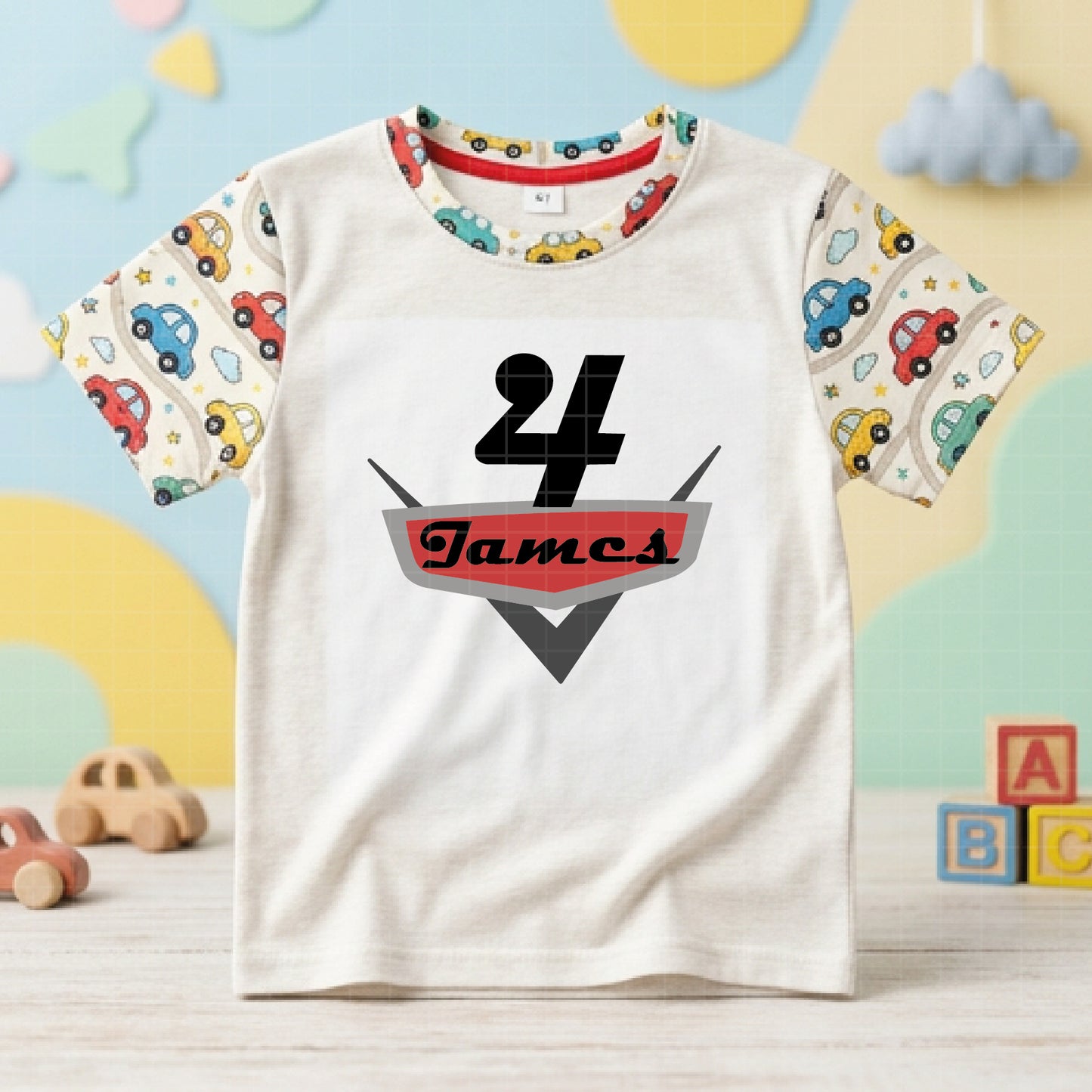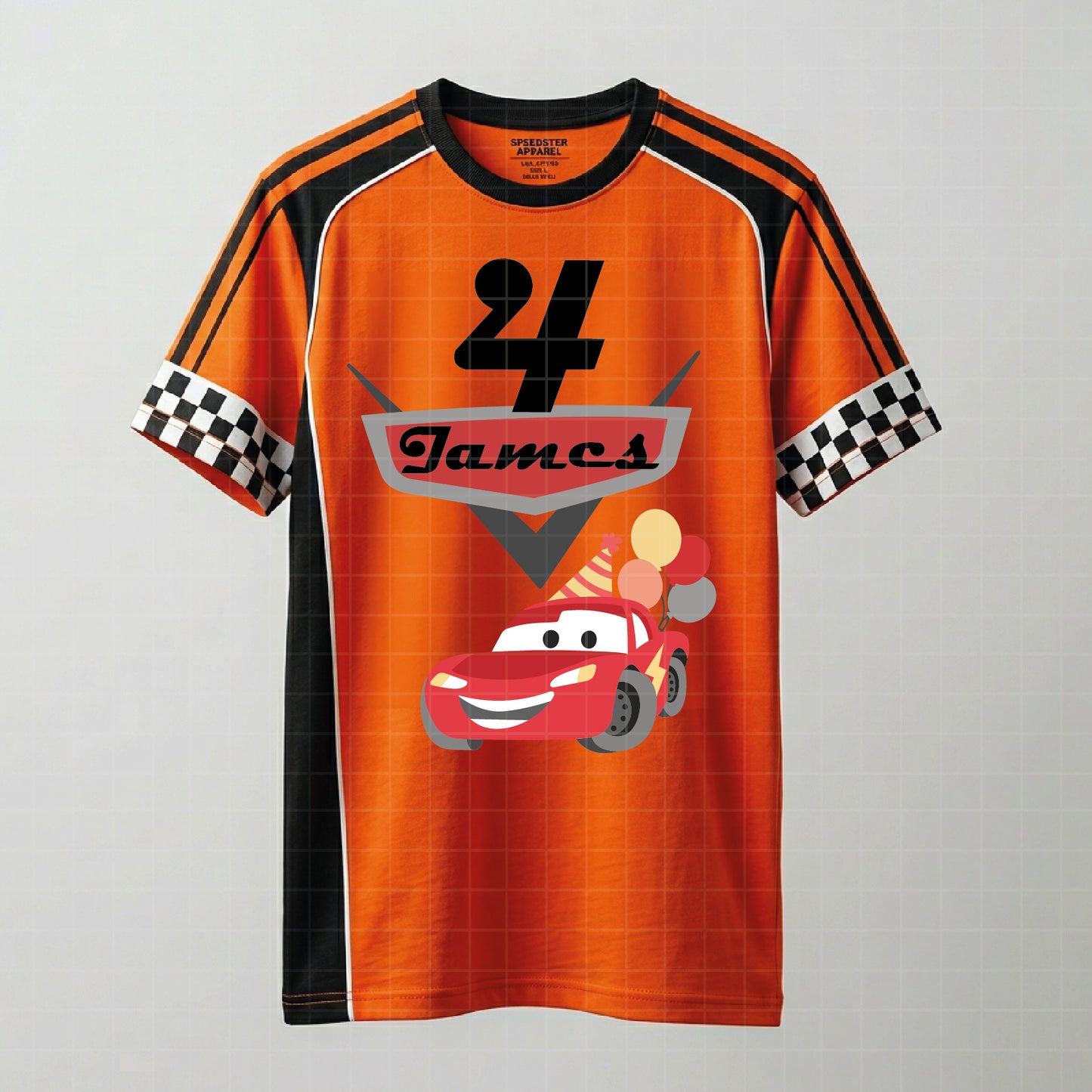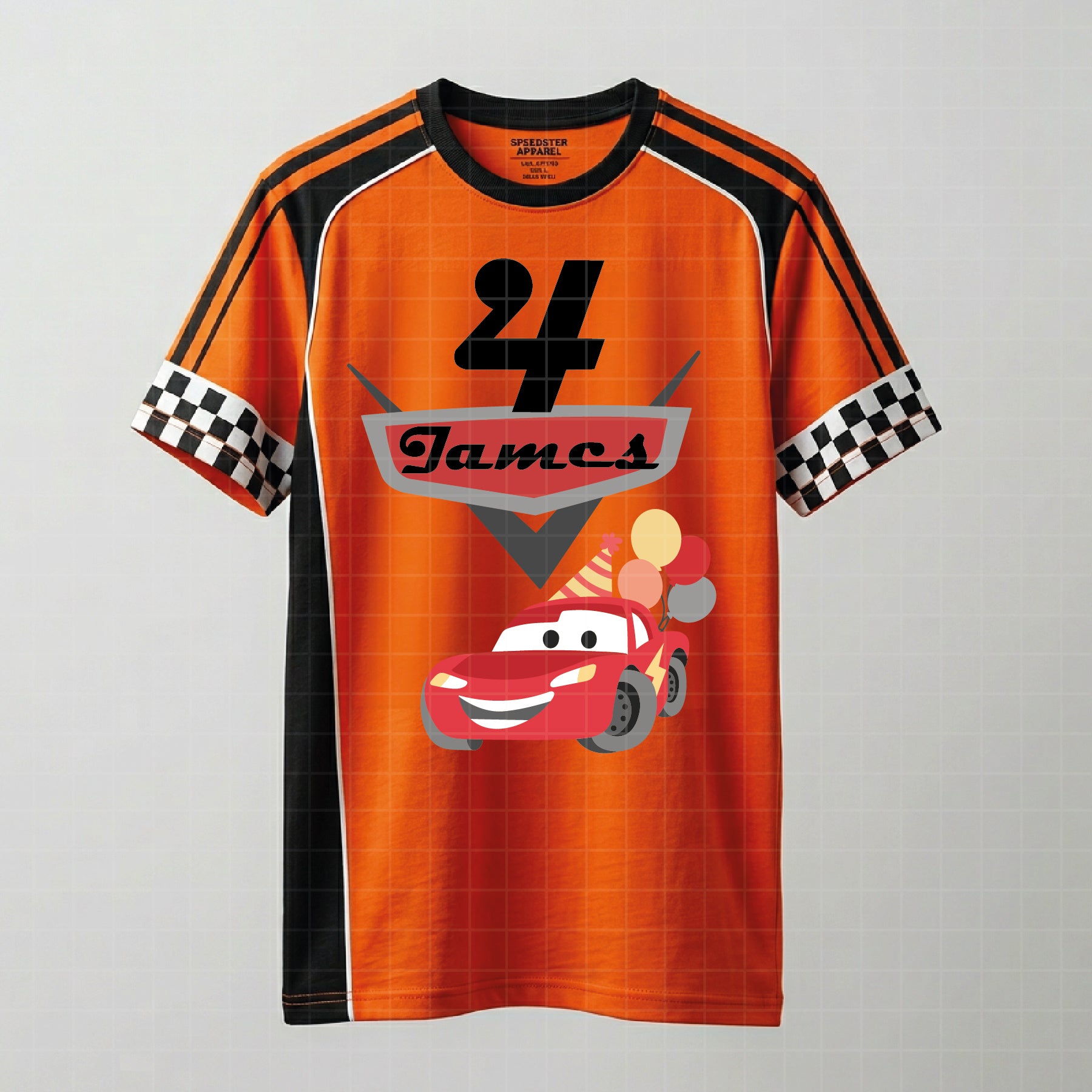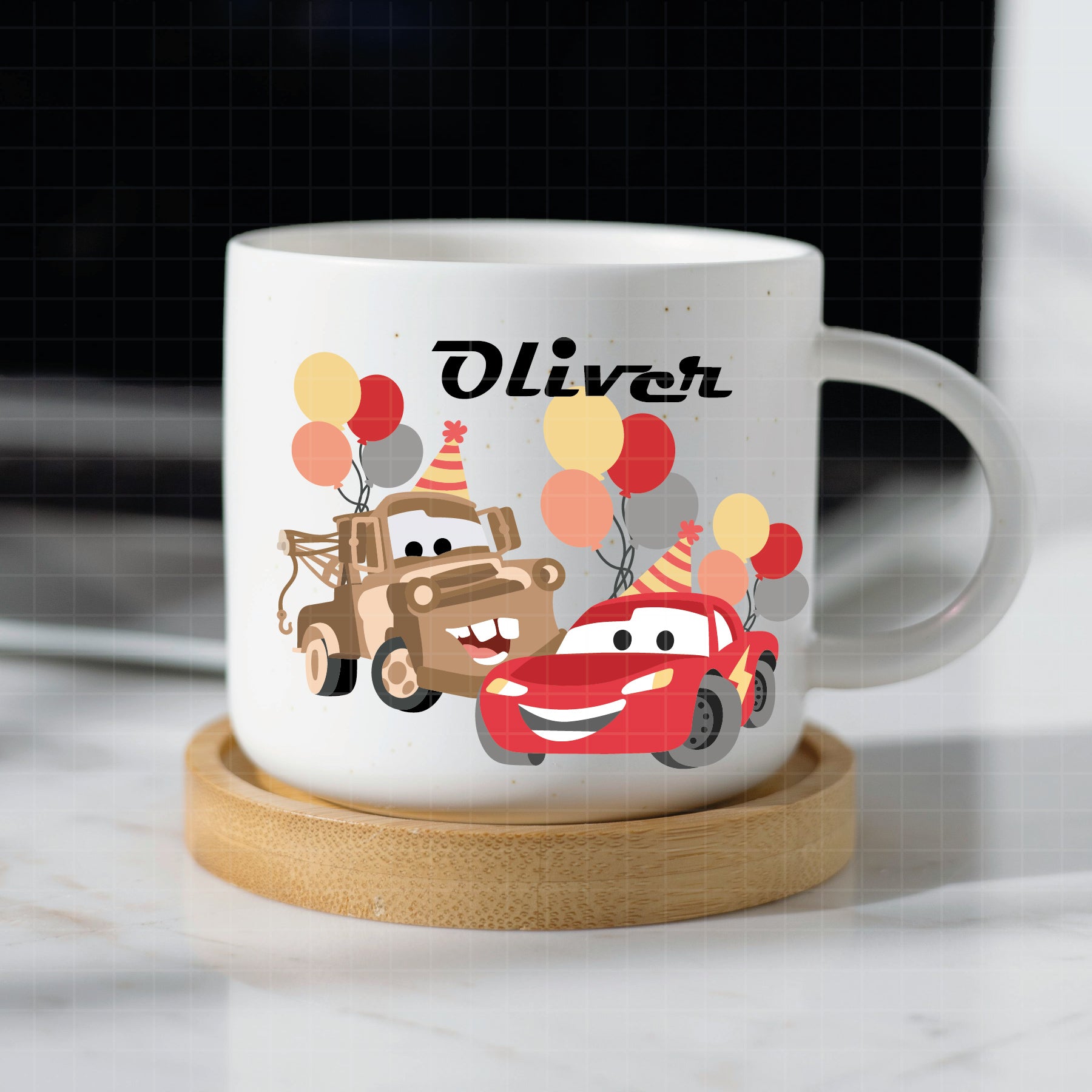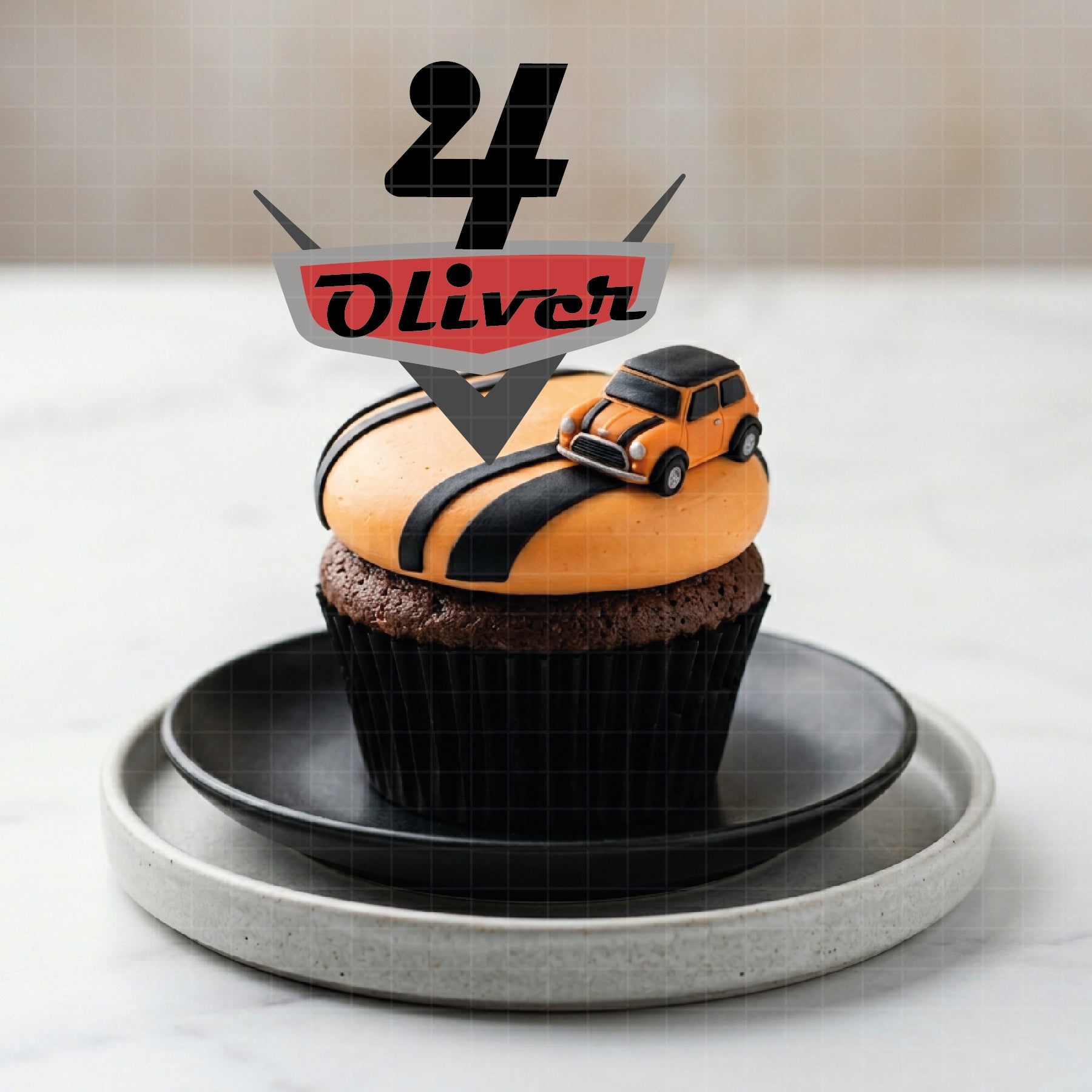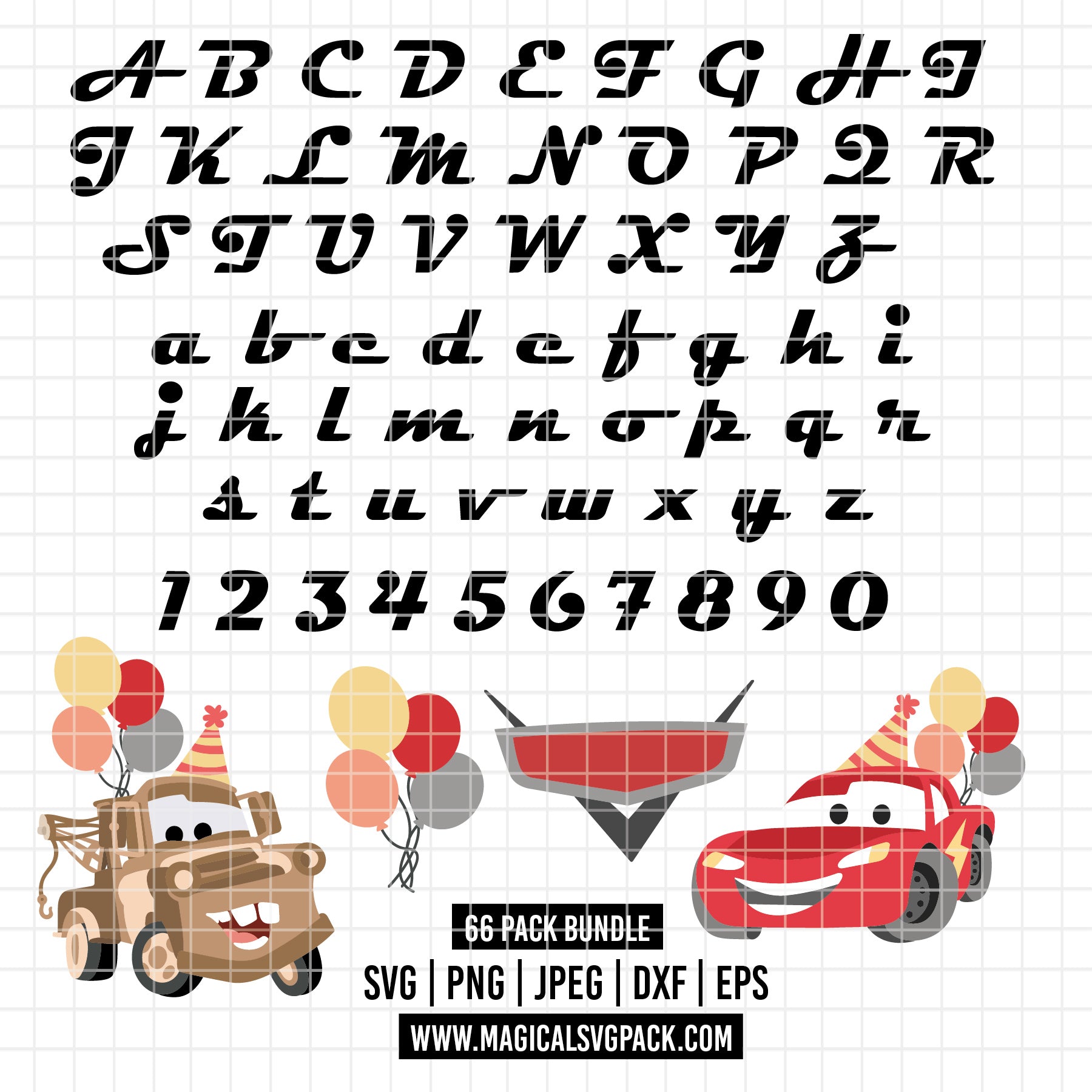
🏁 CARS BIRTHDAY BUNDLE — Official Logo Style Cursive Font + Lightning McQueen + Mater + Full Alphabet + Numbers + Icons.
Use the cursive alphabet to spell any name and combine it with the numbers for the age — create fully custom designs.
✔ Full Alphabet A–Z UPPERCASE (Cars logo style cursive font)
✔ Full Alphabet a–z lowercase (Cars logo style cursive font)